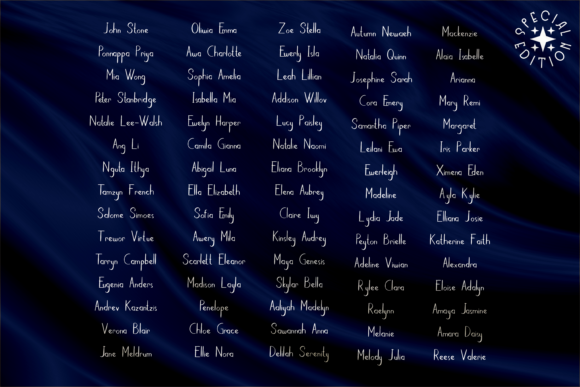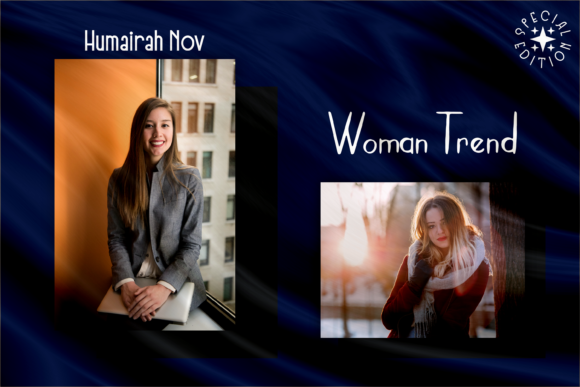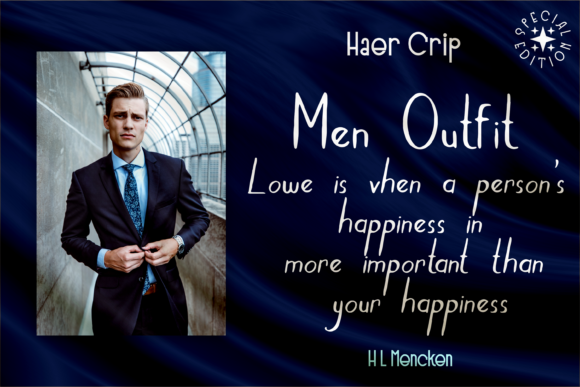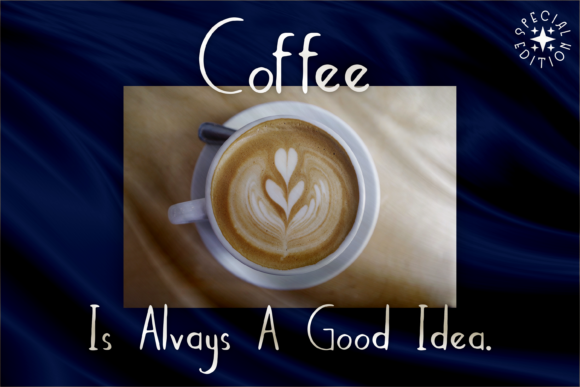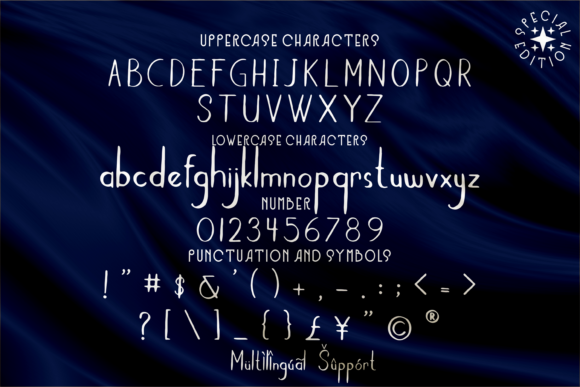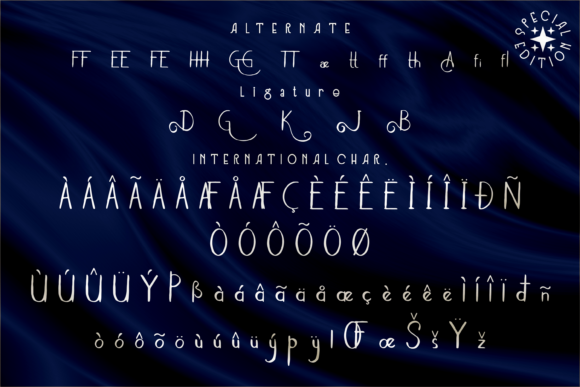
Introducing Feelix Font: The Perfect Handwritten Companion for Creative Projects
Are you a designer, crafter, or DIY enthusiast looking for a font that can add a personal touch to your creative projects? Look no further than Feelix Font, a lovely handwritten font that is perfect for almost any creative endeavor. With its stylish and versatile design, Feelix Font is an incredible asset to your font library, allowing you to add an authentic feel to any item.
What Makes Feelix Font So Special?
Feelix Font is a beautifully crafted handwritten font that exudes warmth and personality. Its unique design makes it stand out from other fonts, and its versatility ensures that it can be used in a wide range of creative projects. Whether you’re working on a branding project, a crafting tutorial, or a DIY guide, Feelix Font is the perfect choice.
One of the key features that sets Feelix Font apart is its ability to add an authentic feel to any item. The font’s handwritten design gives it a personal and human touch, making it perfect for projects where you want to convey a sense of warmth and approachability.
The Benefits of Using Feelix Font
There are many benefits to using Feelix Font in your creative projects. Here are just a few:
- Unique and eye-catching design: Feelix Font has a unique and eye-catching design that will make your projects stand out from the crowd.
- Versatile: The font is highly versatile and can be used in a wide range of creative projects, from branding and advertising to crafting and DIY tutorials.
- Easy to read: Despite its handwritten design, Feelix Font is easy to read and understand, making it perfect for projects where you need to communicate information clearly.
- Authentic feel: The font’s handwritten design gives it an authentic feel that will make your projects feel more personal and relatable.
How to Use Feelix Font in Your Creative Projects
Using Feelix Font in your creative projects is easy. Here are a few tips to get you started:
- Pair it with other fonts: Feelix Font pairs well with other fonts, so don’t be afraid to experiment with different combinations to find the perfect look for your project.
- Use it for headings and titles: The font’s unique design makes it perfect for headings and titles, where you want to make a bold statement.
- Use it for body text: Despite its decorative design, Feelix Font is easy to read, making it suitable for use in body text.
Who Can Benefit from Using Feelix Font?
Feelix Font is perfect for anyone who works on creative projects, including:
- Designers: Graphic designers, branding experts, and digital artists will love Feelix Font’s unique and versatile design.
- Crafters: Crafters, makers, and DIY enthusiasts will appreciate the font’s handmade feel and authentic look.
- Bloggers and writers: Bloggers and writers can use Feelix Font to add a personal touch to their content and make it more engaging.
In conclusion, Feelix Font is a lovely handwritten font that is perfect for almost any creative project. Its stylish and versatile design makes it an incredible asset to your font library, and its ability to add an authentic feel to any item makes it a must-have for designers, crafters, and DIY enthusiasts. Whether you’re working on a branding project, a crafting tutorial, or a DIY guide, Feelix Font is the perfect choice.